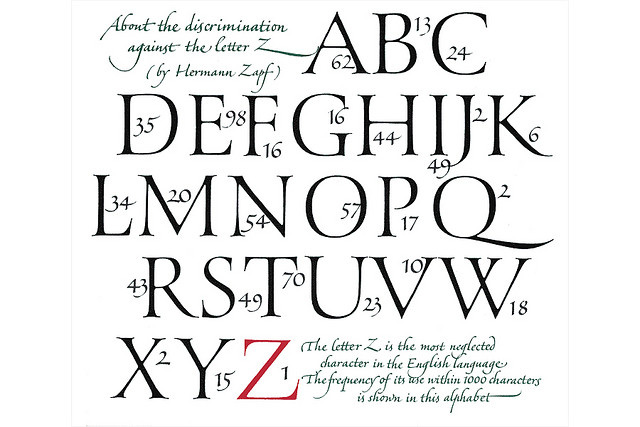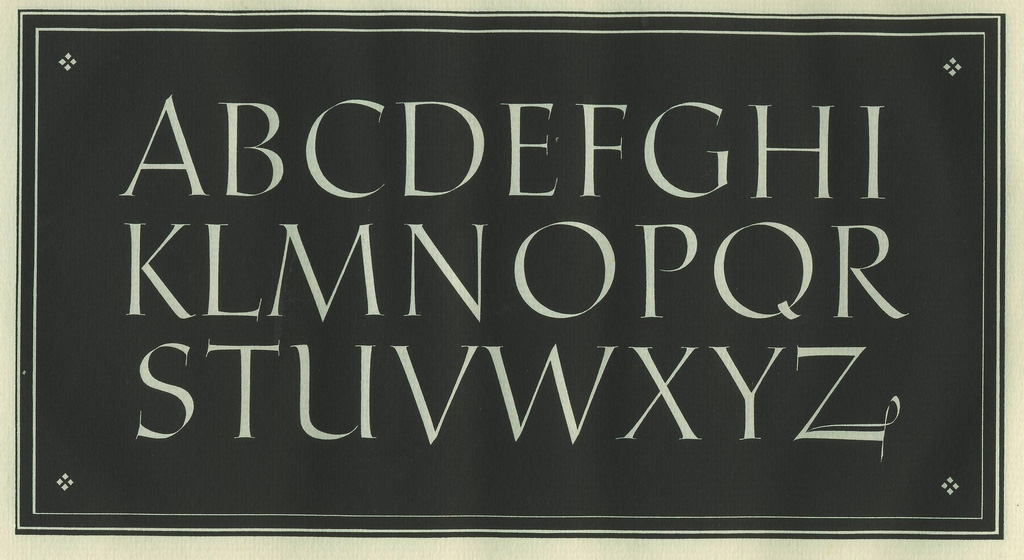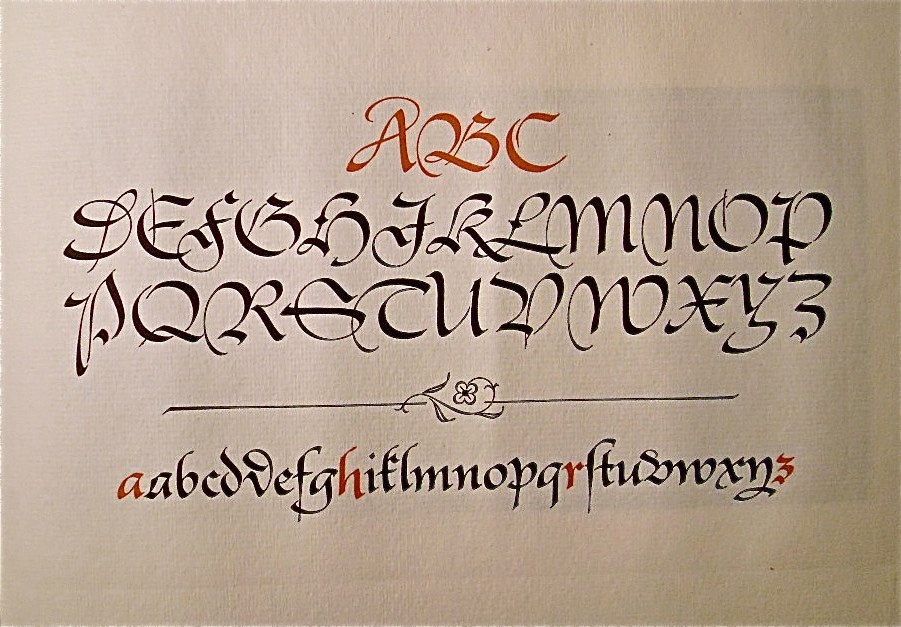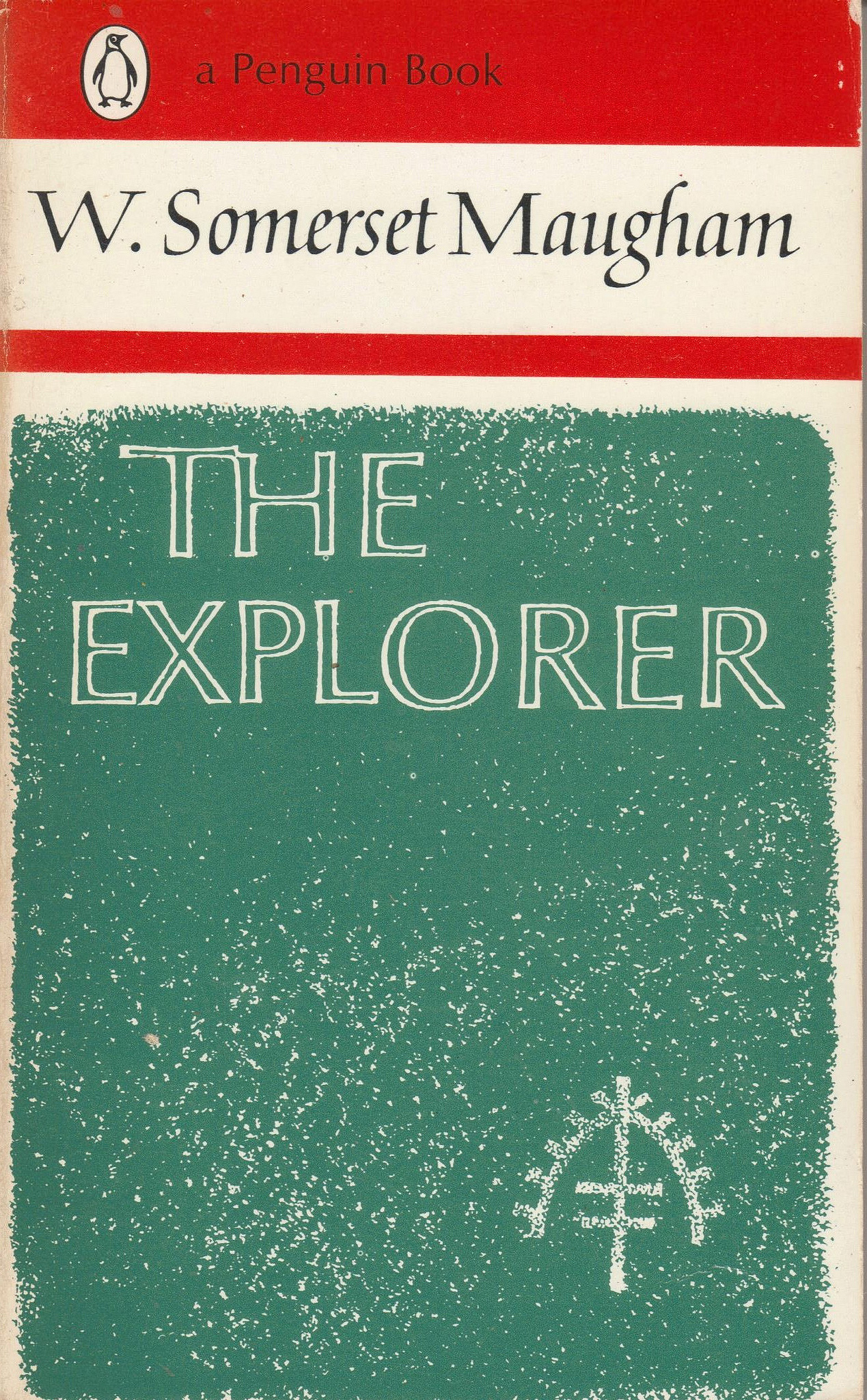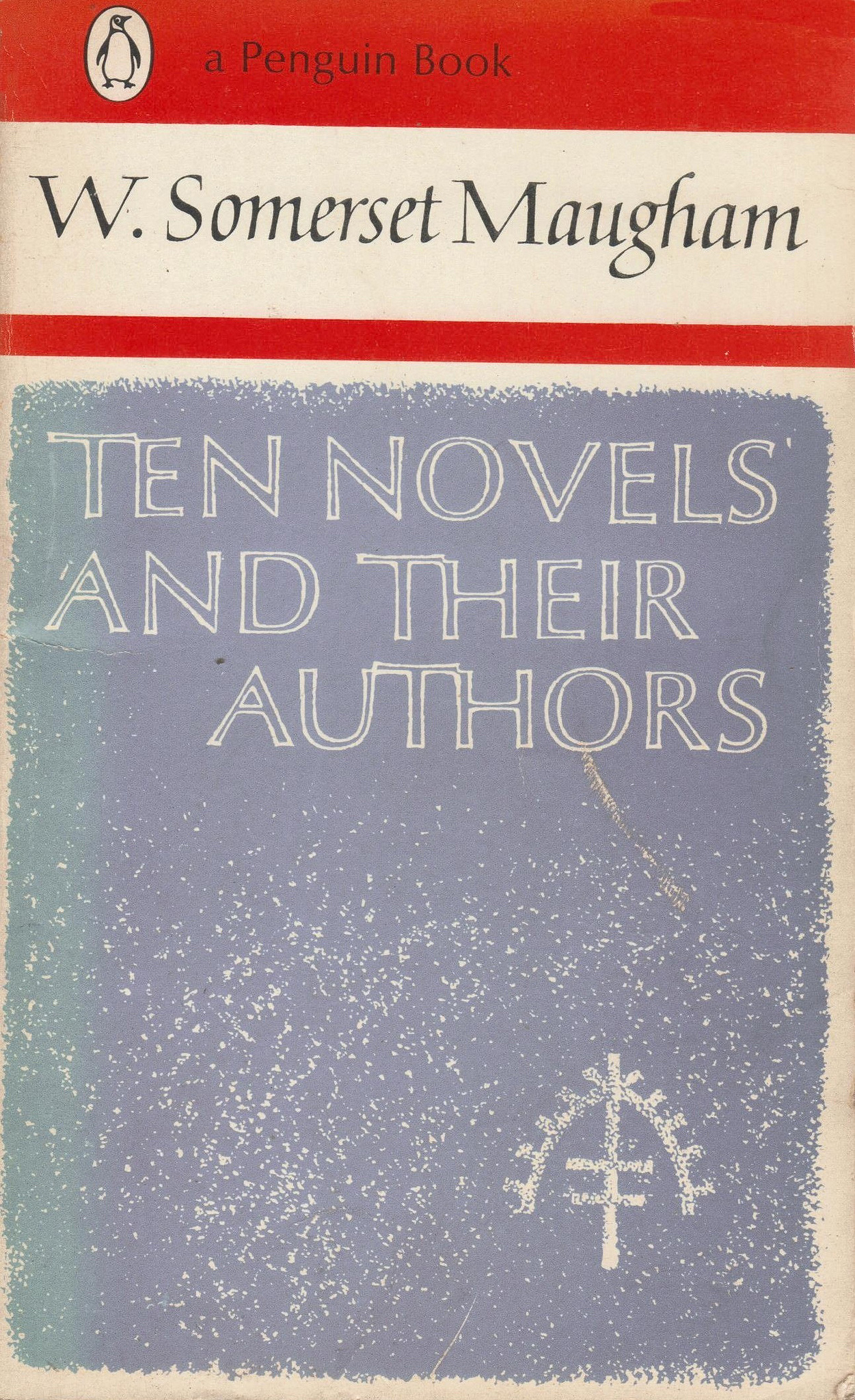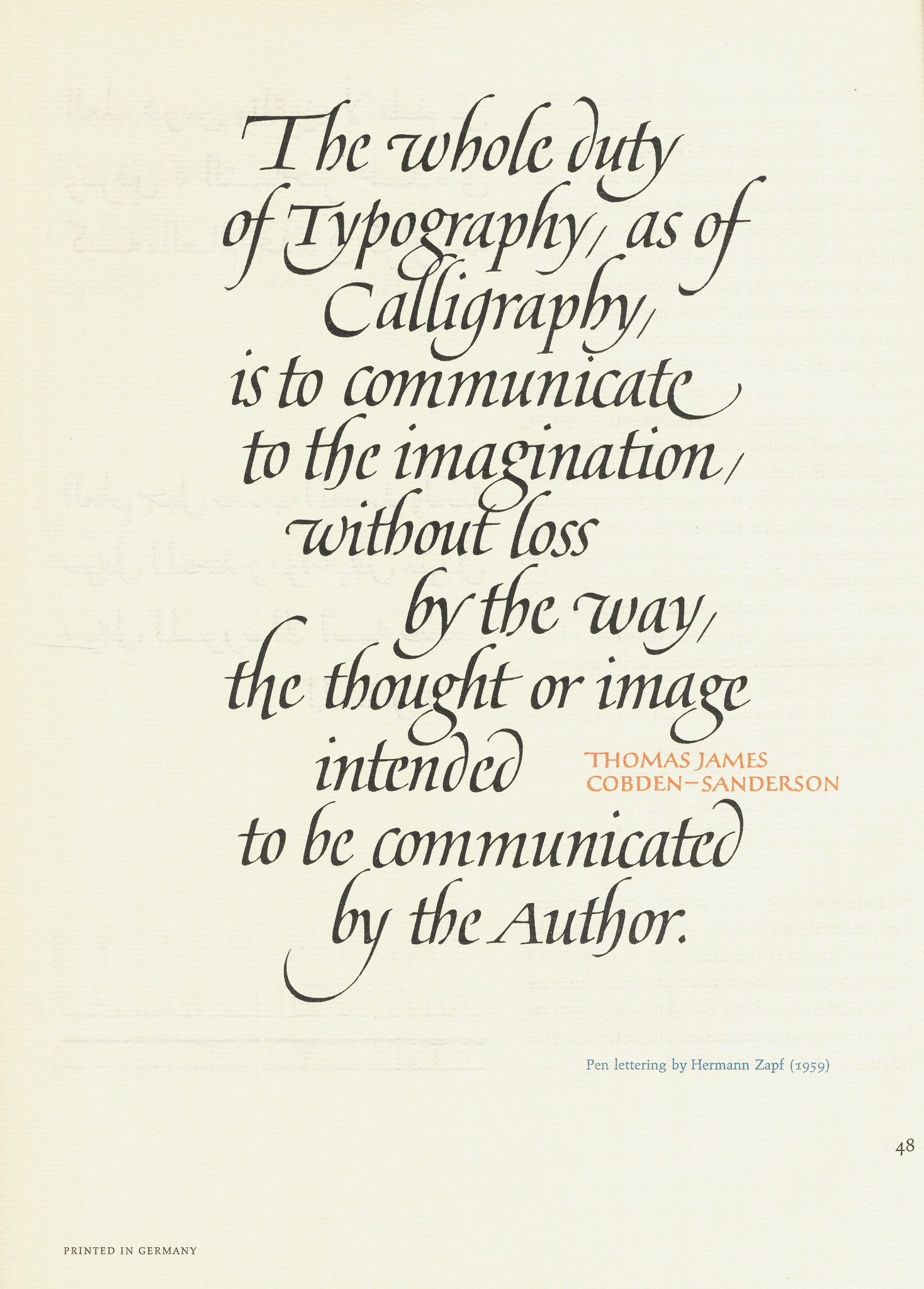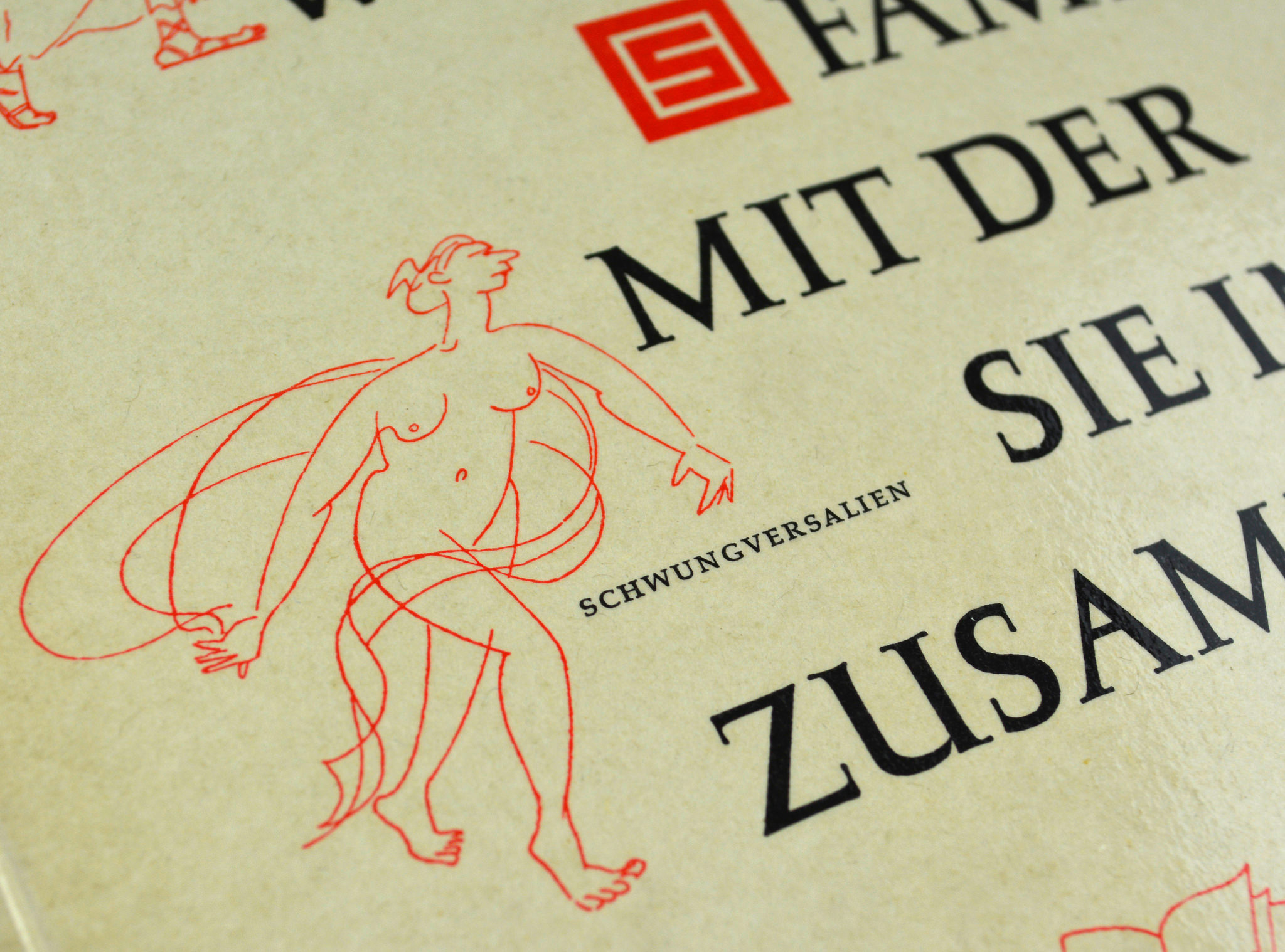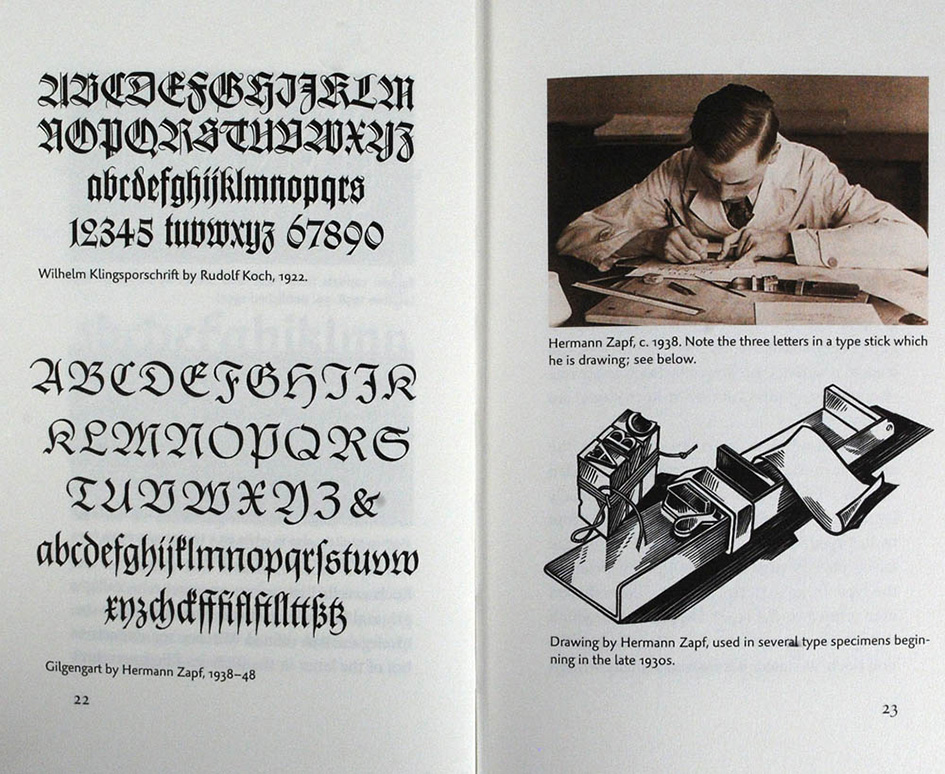
Hermann Zapf passed away yet his letters and wisdom will live on
What Michelangelo was to sculpture and Beethoven was to music, that’s what Hermann Zapf is to type design and calligraphy. We’re all followers of his now” said American typographer, calligrapher and type designer Jerry Kelly to New York Times. “The passion for him was to create beautiful letters. But at the same time, he was like the Beatles. His typefaces are so popular — go anywhere in the world, pick up a magazine in any airport, you’ll see Hermann Zapf typefaces — but they’re also so good that the connoisseurs all know it. And that happens maybe every 100 years” he added on the news he confirmed. Hermann Zapf passed away on June 4 at age 96.
“Typography is two-dimensional architecture, based on experience and imagination”
This is not a biographical tribute to the man who invented his very special alphabet at age 12 in order to exchange secret messages with his brother -“they were some kind of cross between Germanic runes and Cyrillic, and could only be deciphered if you knew the code. My despairing mother could not make head nor tail of them” he wrote in his autobiography. Nor another piece on the life story of the man who designed numerous iconic typefaces (Palatino and Optima to name a few), the calligrapher at heart who is regarded a King in
the Typographic Realm and mastered his craft from metal typesetting through phototypesetting to digital typesetting with a sole purpose in his mind. To help get the message through. This is a single reminder of his prolific wisdom as he expressed it in his own words.
“The designer of new typefaces is limited by the traditional forms of the alphabet. There are few possibilities for new ideas, for a good design should not have eccentric and unusual details”
This is what Hermann Zapf, a versatile, ultra-productive typographer and calligrapher, a pioneer of computerized typography has to say on the art of the letterform: “Type design is one of the most visible and widespread forms of graphic expression in daily life. It is still not noticed by all readers of newspapers, magazines or books. Nevertheless letter forms reflect the style of a period and its cultural background. We are surrounded by them everywhere.
The designer of new typefaces works in extremely small dimensions in shaping a letter and he is also limited by the traditional forms of the alphabet. There are few possibilities for new ideas, for a good design should not have eccentric and unusual details. But the compromises required in designing for metal type can be ignored today because the new digital technology allows freedom in making new designs.
“Letter forms reflect the style of a period and its cultural background”
Typography is two-dimensional architecture, based on experience and imagination, and guided by rules and readability. And this is the purpose of typography: The arrangement of design elements within a given structure should allow the reader to easily focus on the message, without slowing down the speed of his reading.”